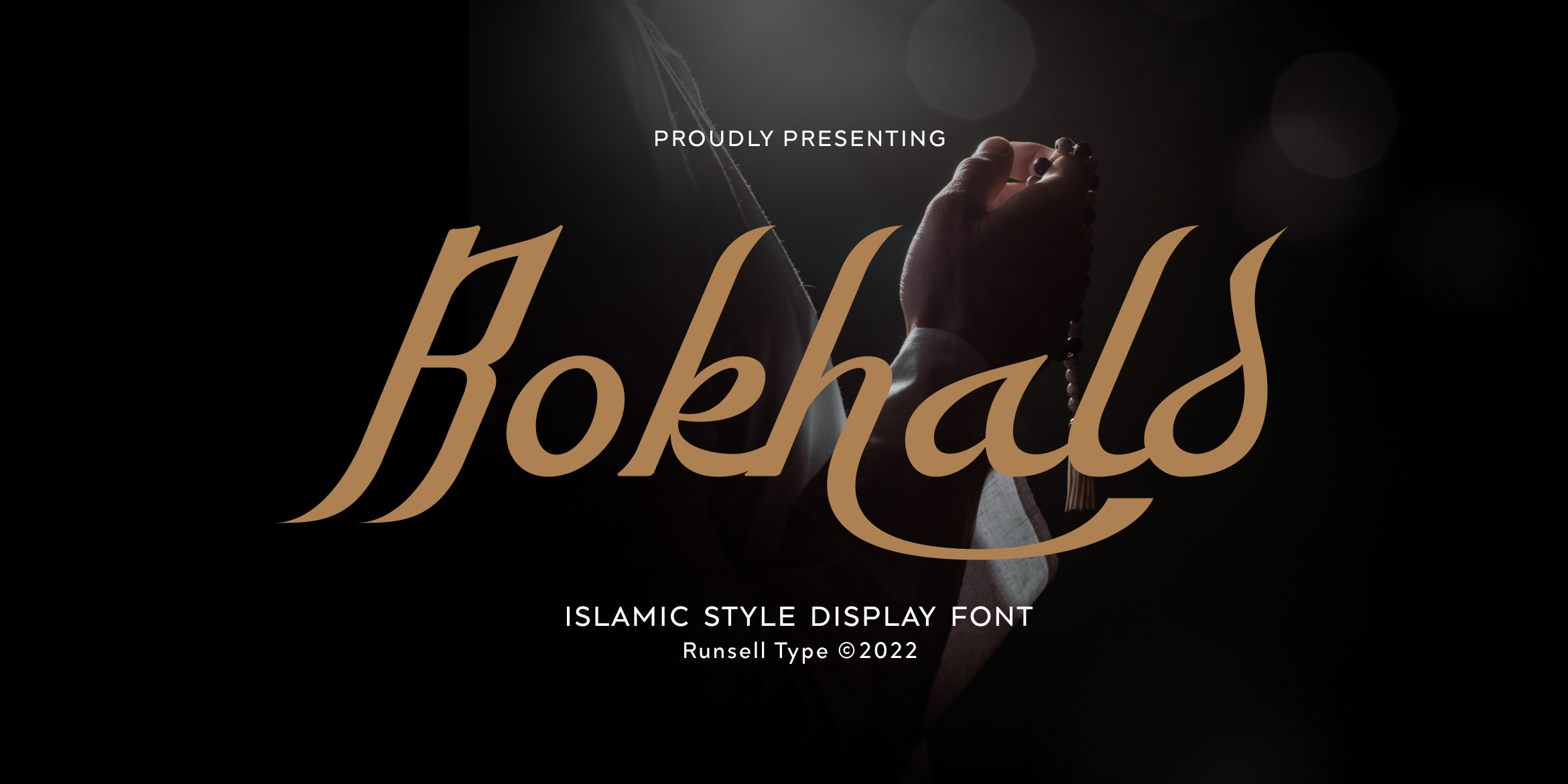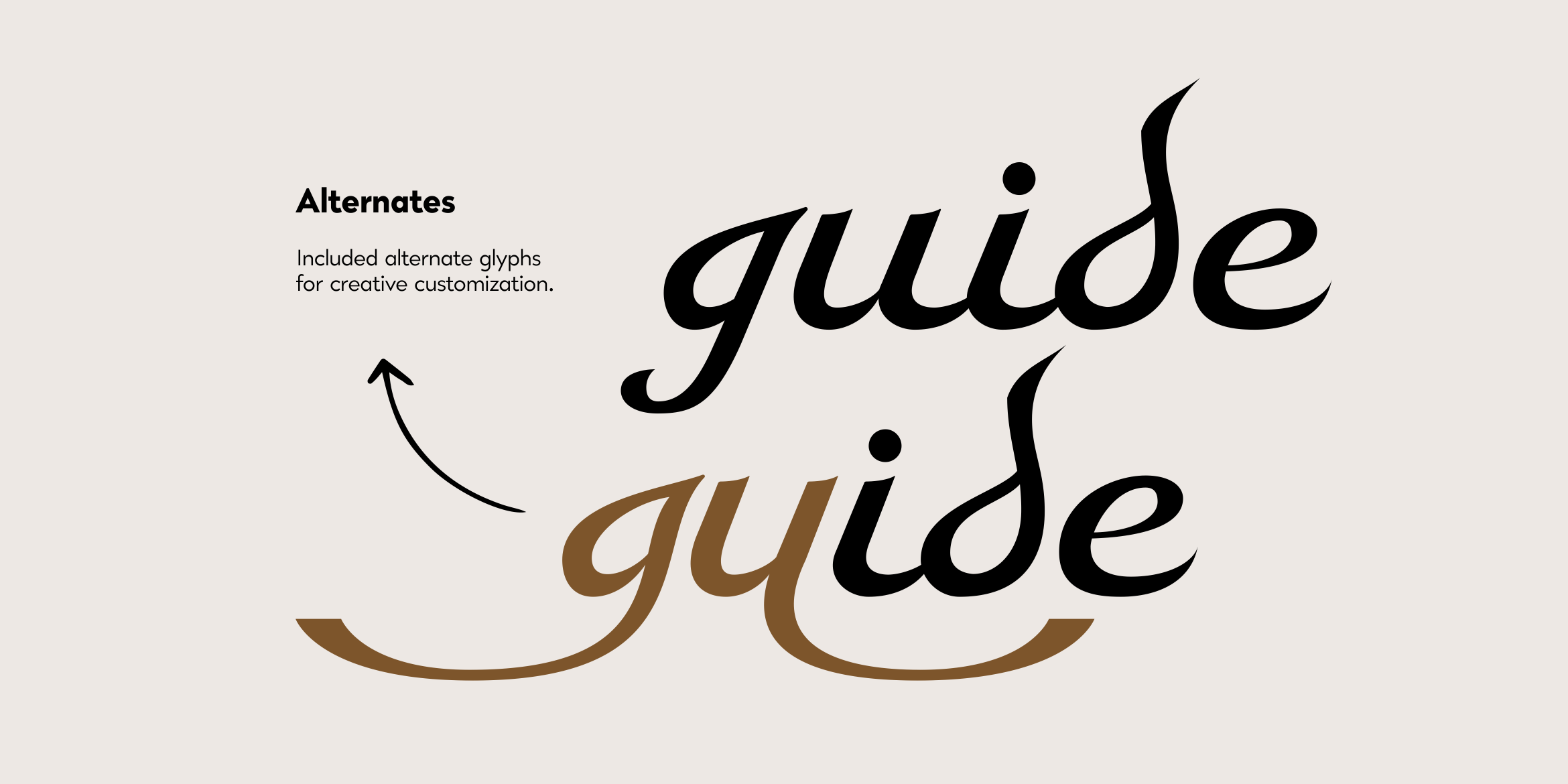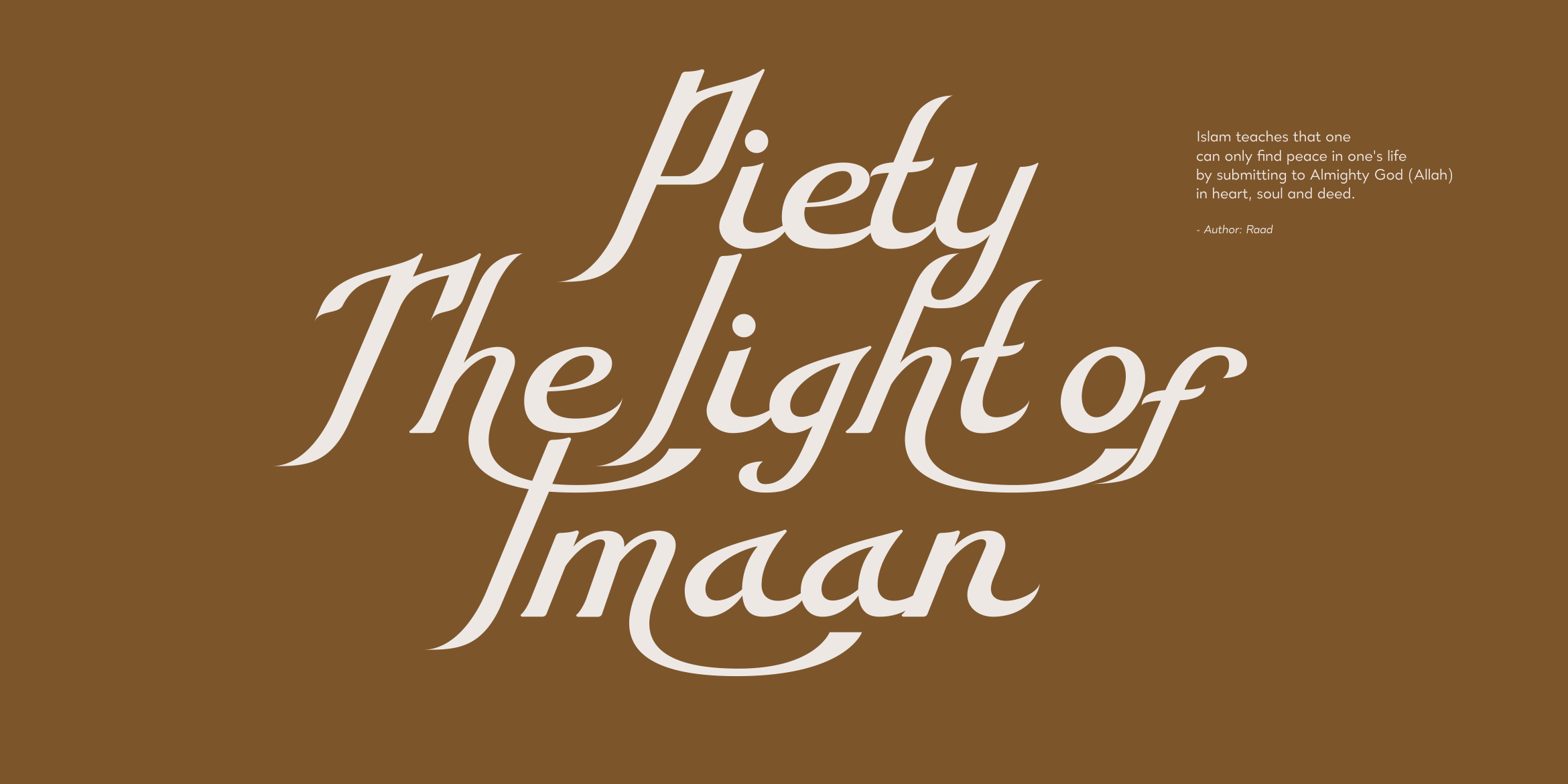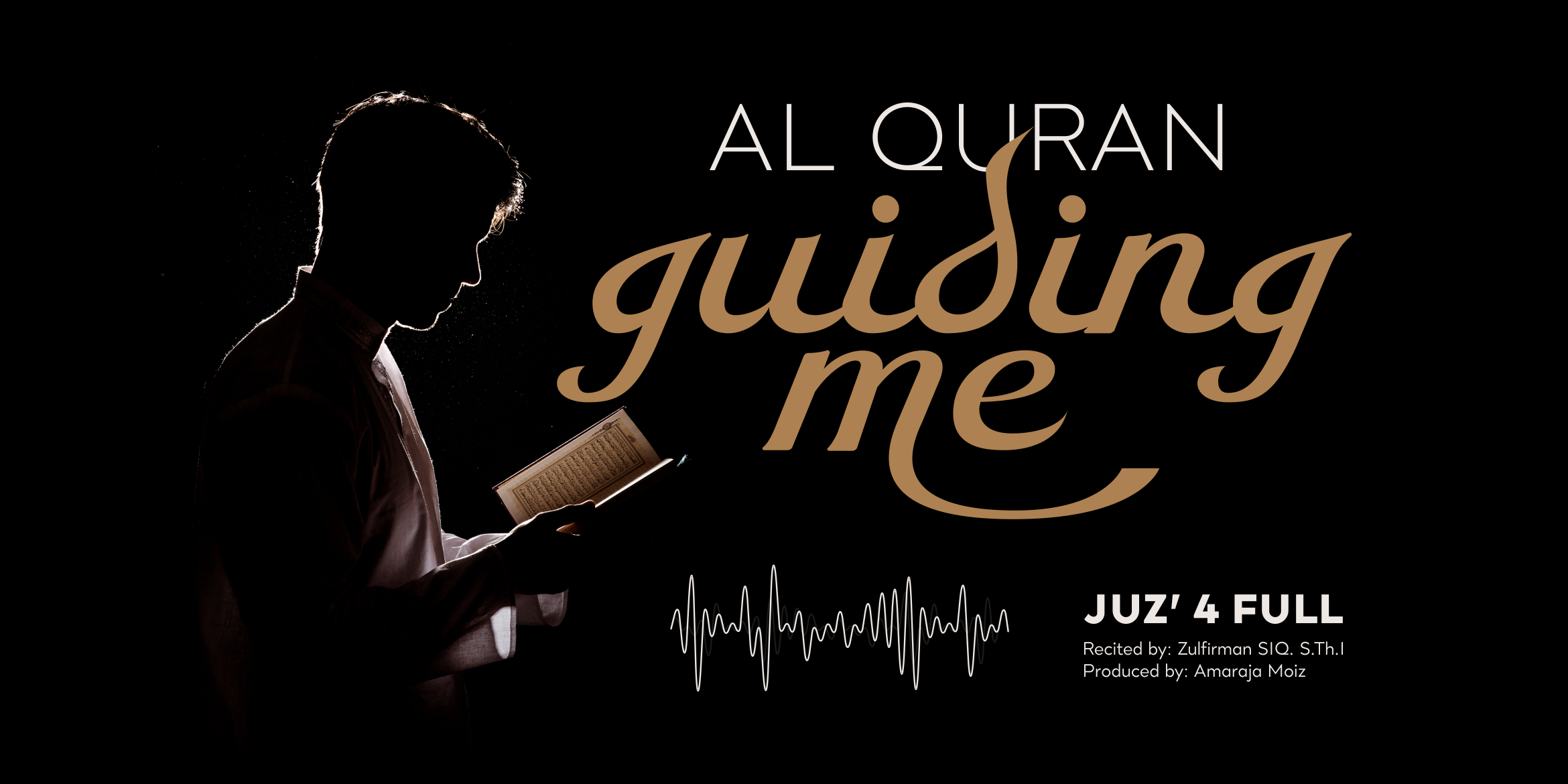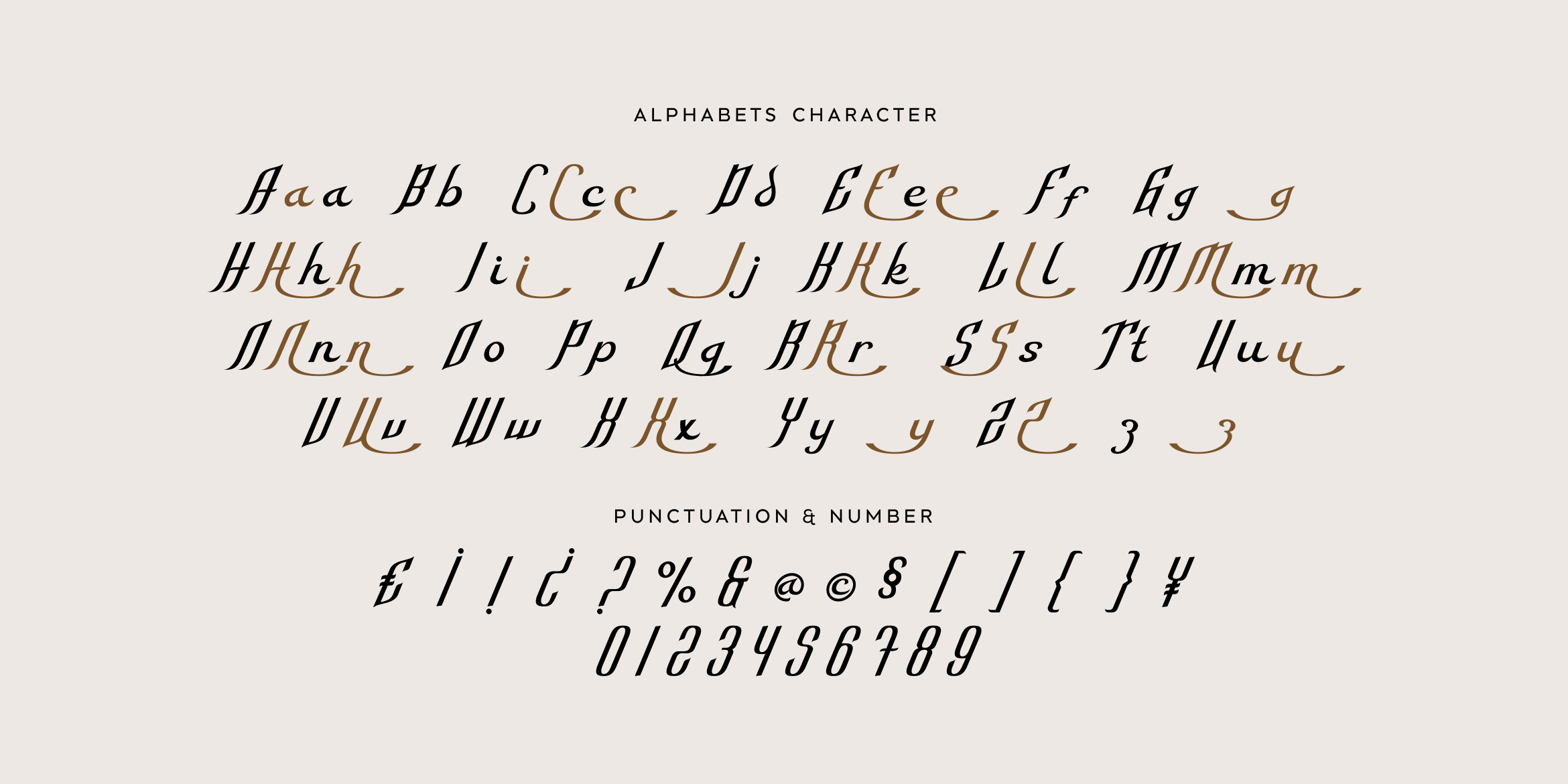
Rokhald is an elegant Islamic-style display font that combines classical calligraphic curves with modern refinement. Its smooth flow and sharp serifs evoke a sense of spiritual beauty, making it perfect for religious invitations, Quranic quotes, Islamic book covers, and branding that requires a touch of devotion and elegance.
This font offers a variety of alternate glyphs that allow for expressive customization. The fluid tails and intricate letterforms are designed to reflect serenity and sophistication, ensuring Rokhald stands out in both digital and print contexts. Whether for spiritual campaigns or premium Islamic packaging, Rokhald delivers timeless harmony.
Rokhald